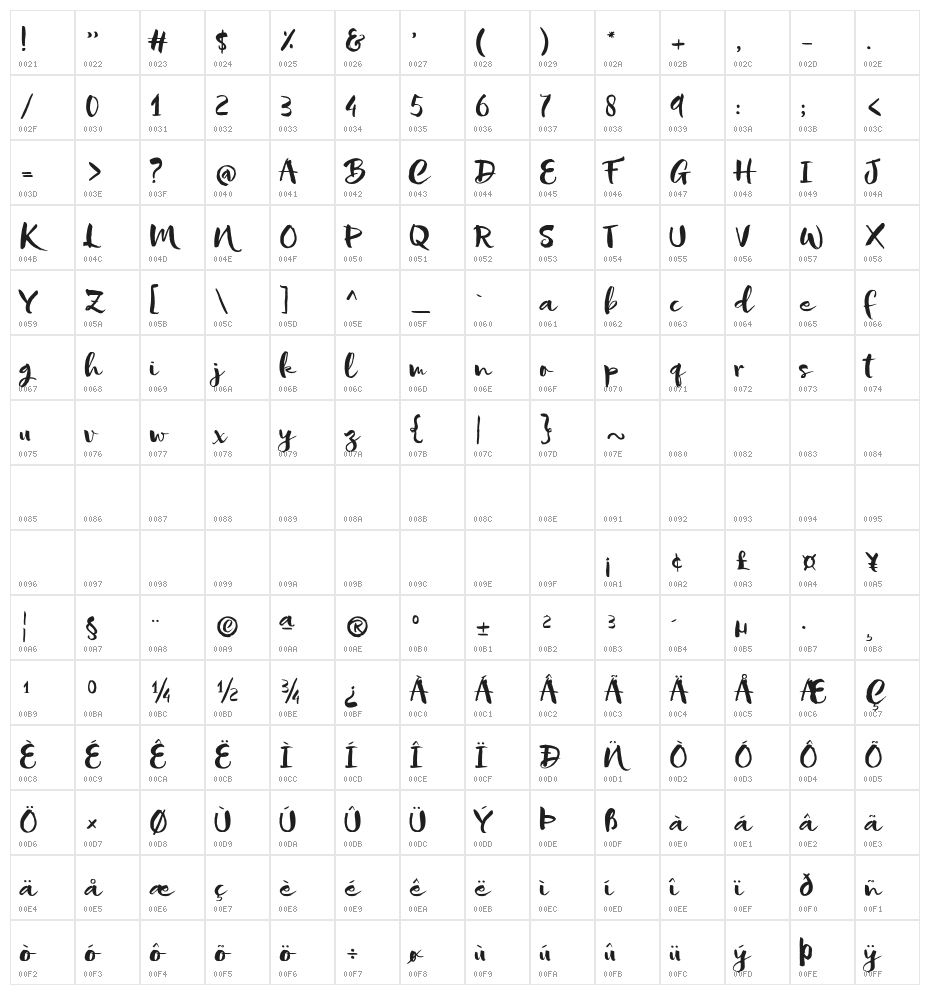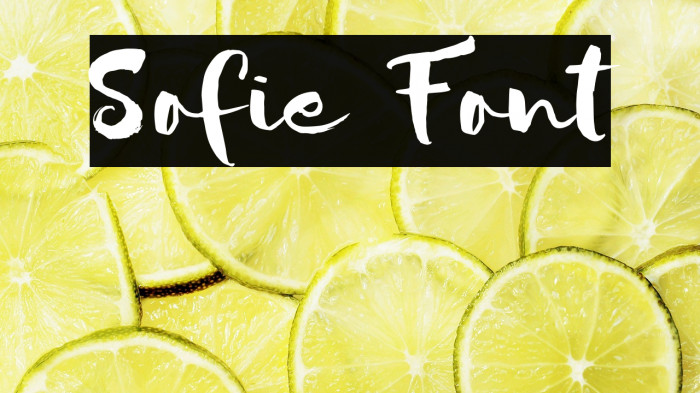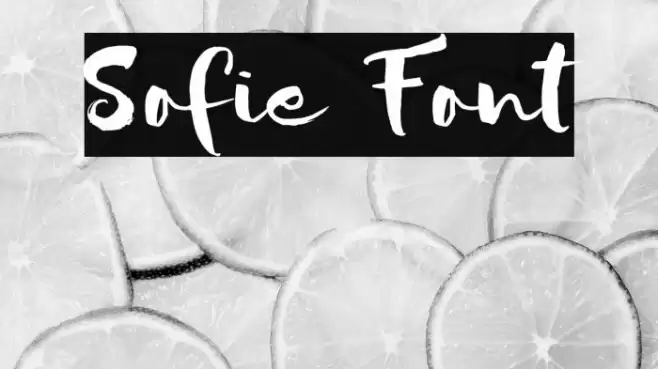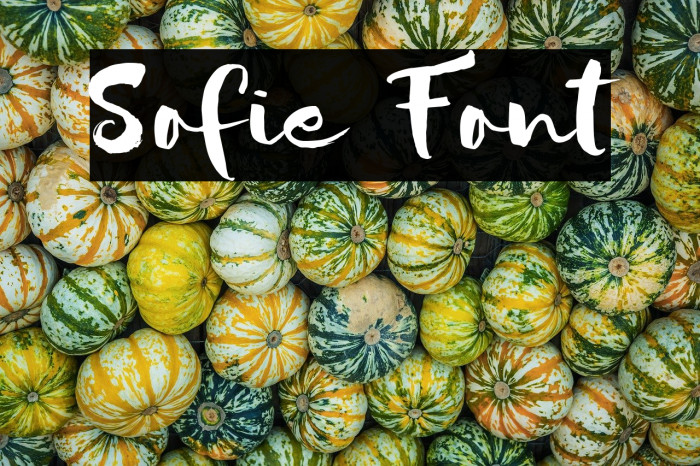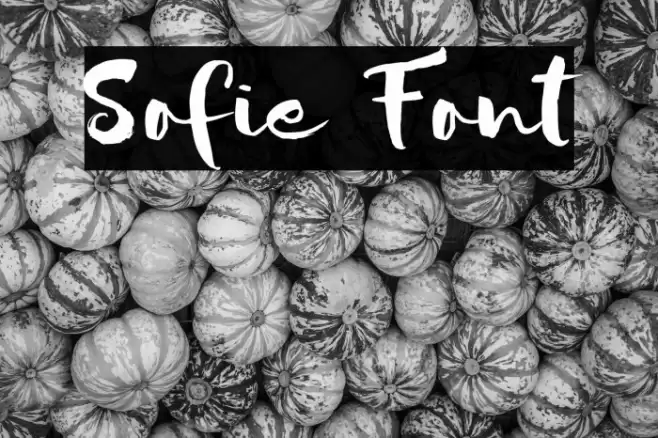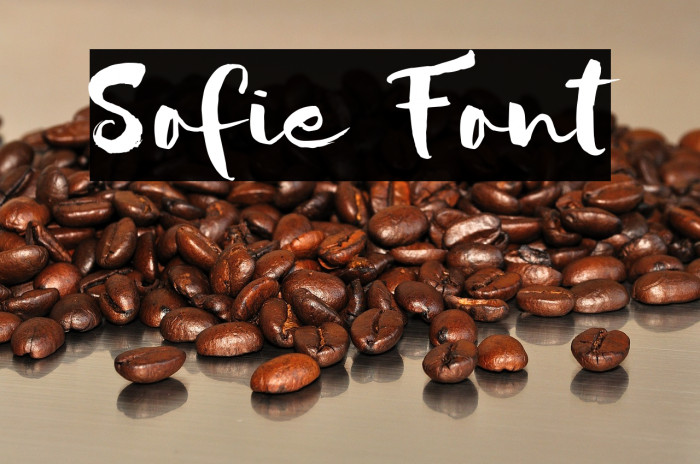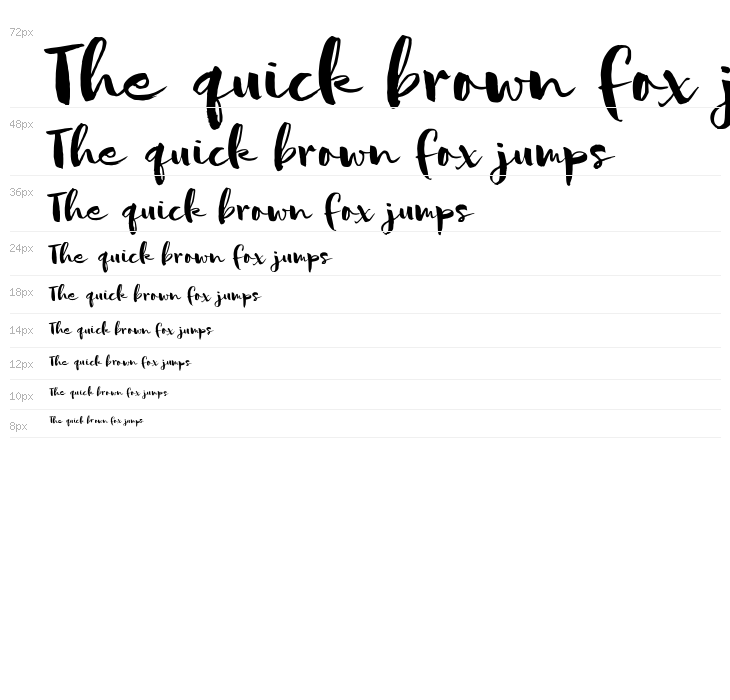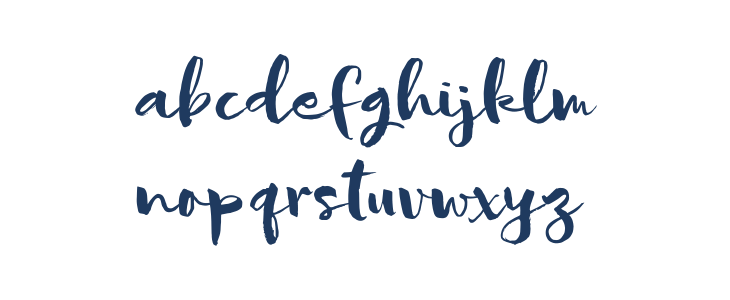
Sofie Font
Sofie Description
This font features a bold, expressive style with a handwritten appearance. The characters are crafted with a brush-like texture, giving them a dynamic and artistic flair. The uppercase letters are bold and slightly irregular, adding to the font's organic feel. Lowercase letters maintain a consistent flow, enhancing readability while retaining a casual elegance. Numbers and special characters follow the same stylistic approach, ensuring uniformity across all glyphs. The overall design is both playful and sophisticated, making it suitable for creative projects.